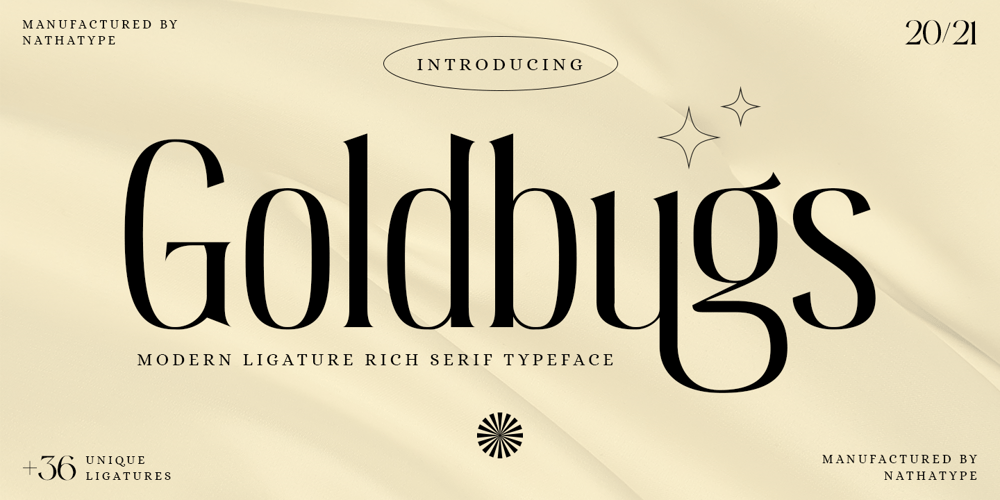
Goldbugs Font Family was designed by Donis Miftahudin and published by Nathatype. Goldbugs contains 1 styles and family package options. Hi, Everyone! Want font to make your branding bold? Looking for a fabulous, stylish, modern, and adventure font? We’ve got what you want.Goldbugs-A Serif FontGoldbugs a timeless serif font. Designed with elegance and modern style. Every letter has a unique and beautiful touch, which will make your design come alive. This font is perfect for quotes, shirt designs, websites, branding, children’s designs, svg designs, blogs, logos, invitations and more!Our font always includes Multilingual Support to make your branding reach a global audience. Features: Ligatures Stylistic Set Swashes PUA Encoded Numerals and Punctuation Thank you for downloading premium fonts from Natha Studio